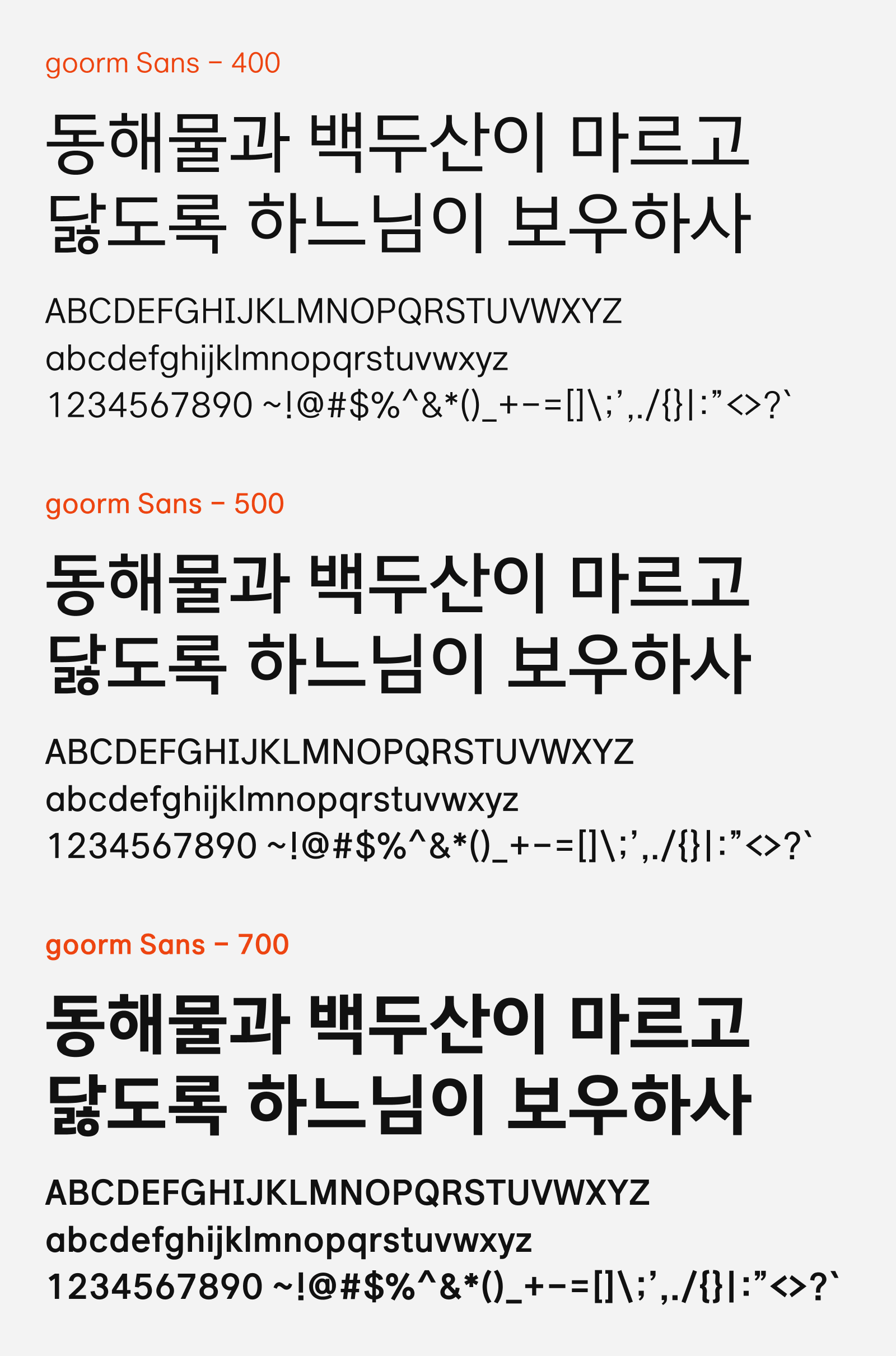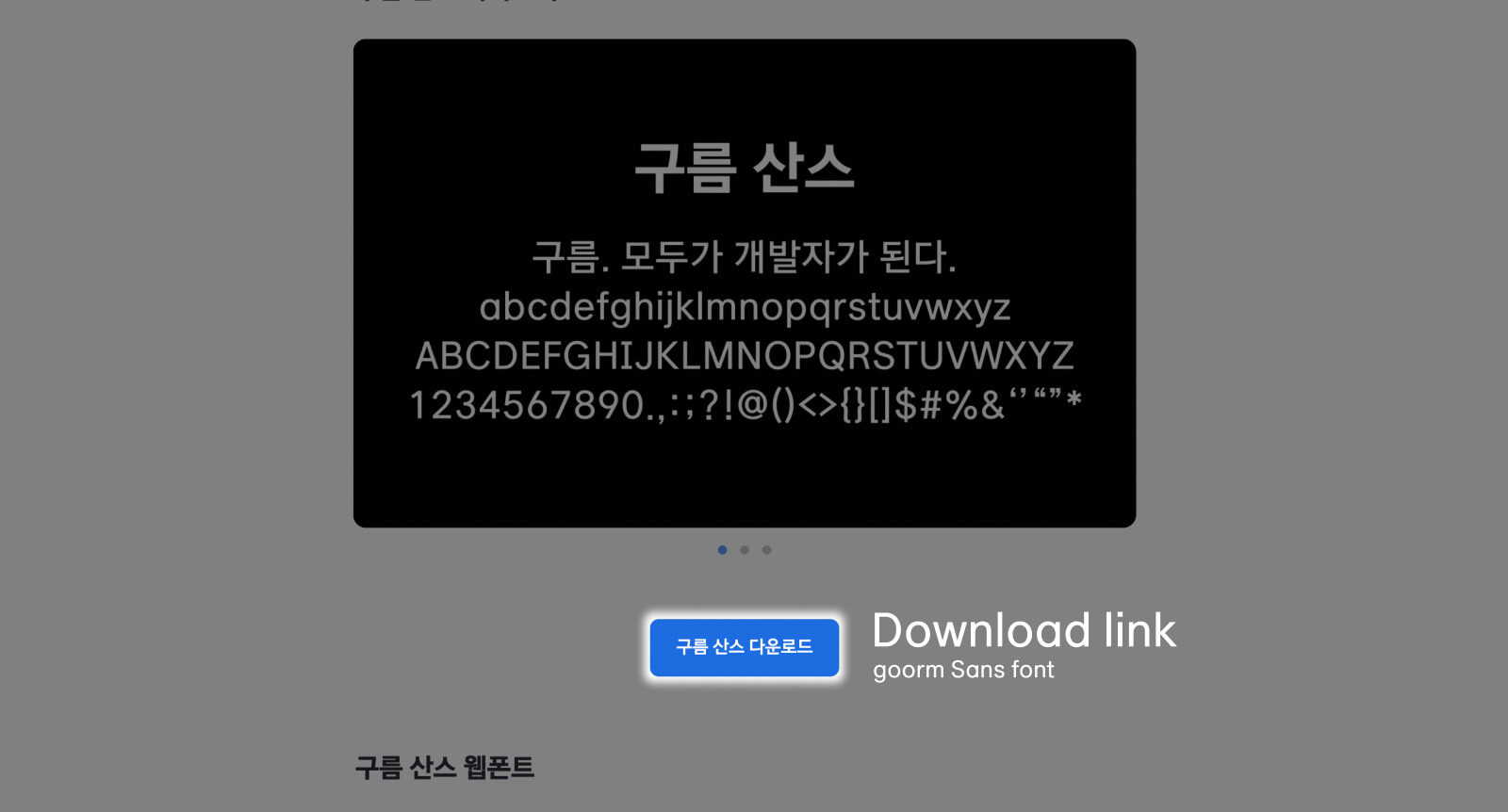
goorm Sans
goorm Sans (구름 산스) is a functional and professionally designed sans-serif font that is free to download. It was developed by goorm (구름), a Korean cloud-based developer education platform on a mission to make coding accessible to everyone. They designed and released this font family to support this identity. goorm Sans is designed around stable proportions and consistent character widths, with readability as the primary goal.
goorm Sans comes in three weights — Regular (400), Medium (500), and Bold (700) — giving it enough range to cover body copy, UI labels, and display headings within a single family. The design leans practical rather than expressive: a workhorse font that stays out of the way and lets your content do the talking. It suits UI design, product interfaces, editorial layouts, and marketing materials equally well. Released under the SIL Open Font License, Goorm Sans is free to use for both personal and commercial projects. It’s also available as a web font via CDN, making it easy to drop straight into a web project without any self-hosting.